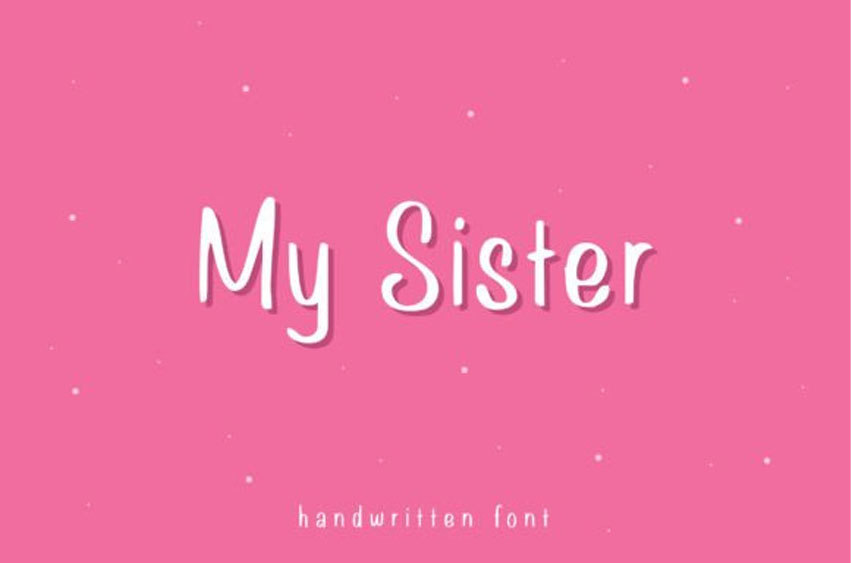
My Sister Font
My Sister Font is a cute and adorable handwritten font.
No matter the topic, this font will be an incredible asset to your fonts’ library, as it has the potential to elevate any creation.